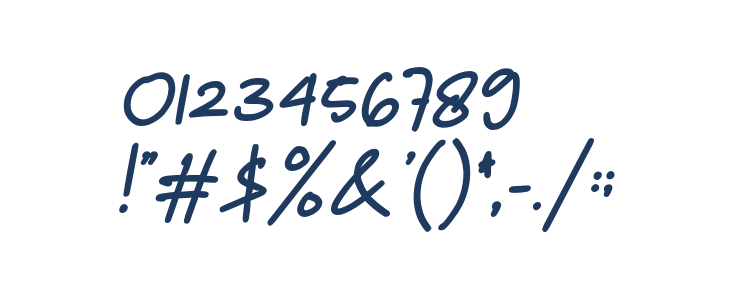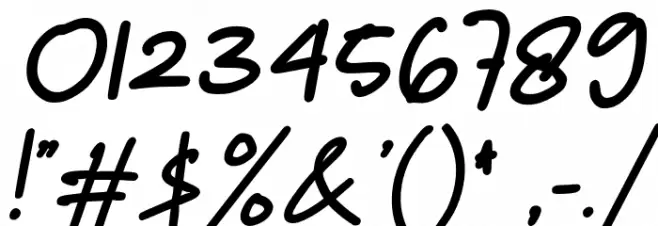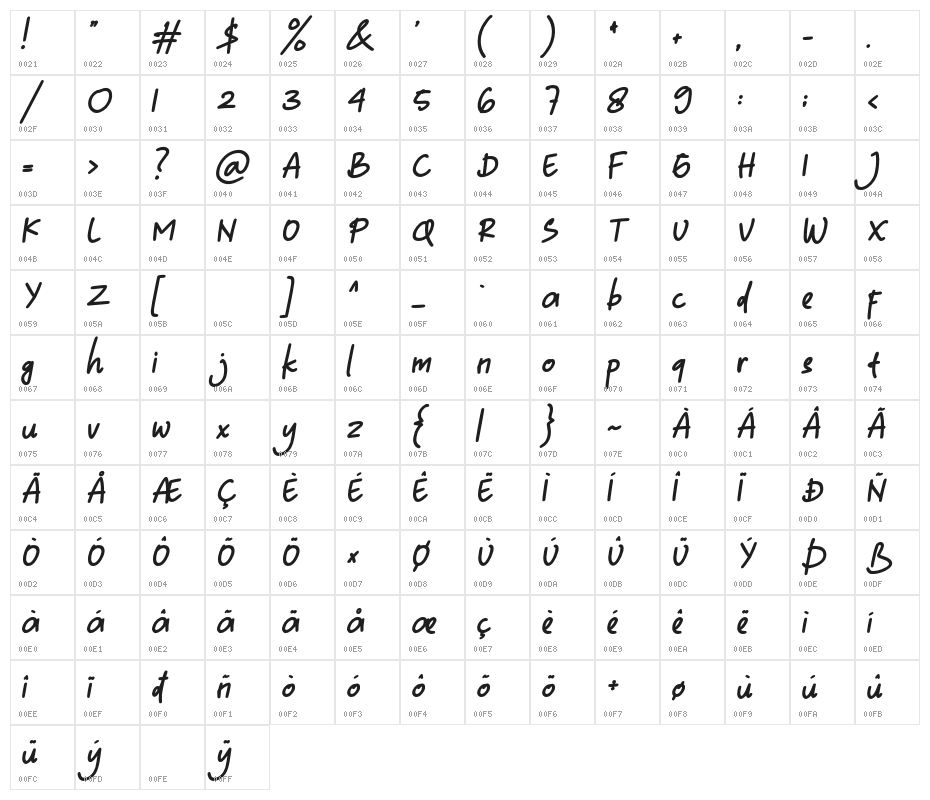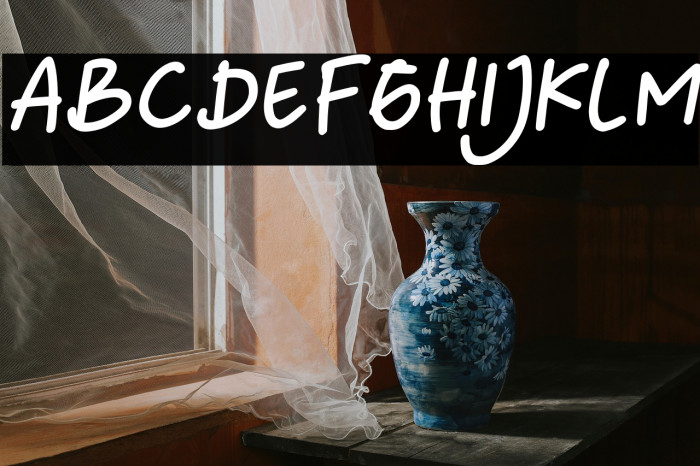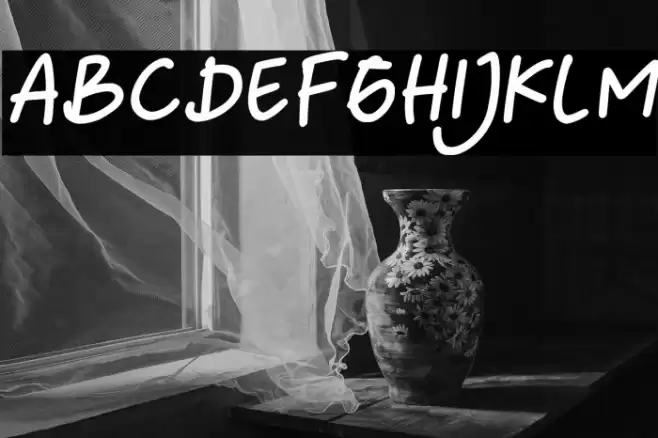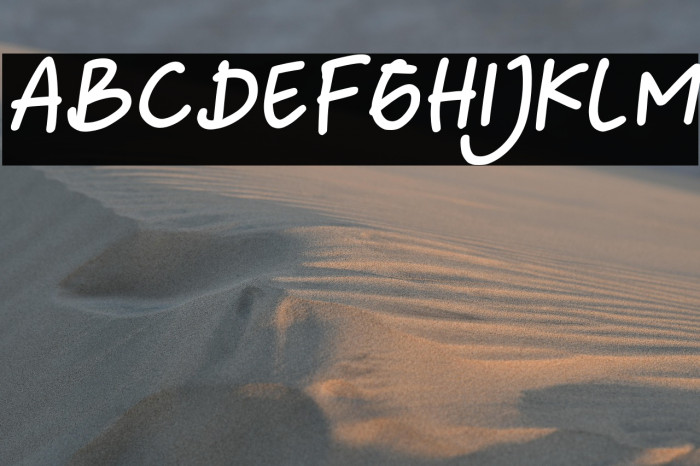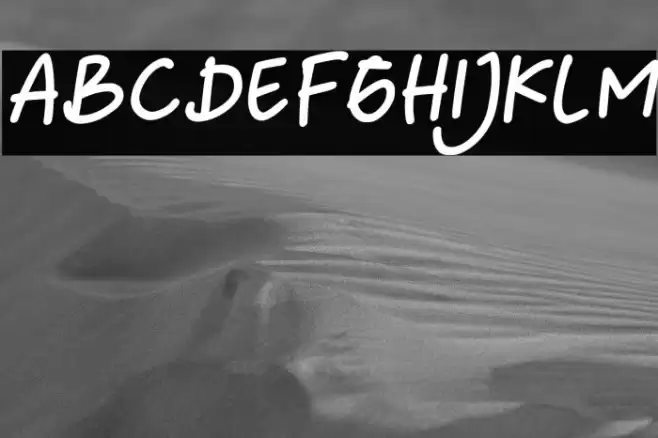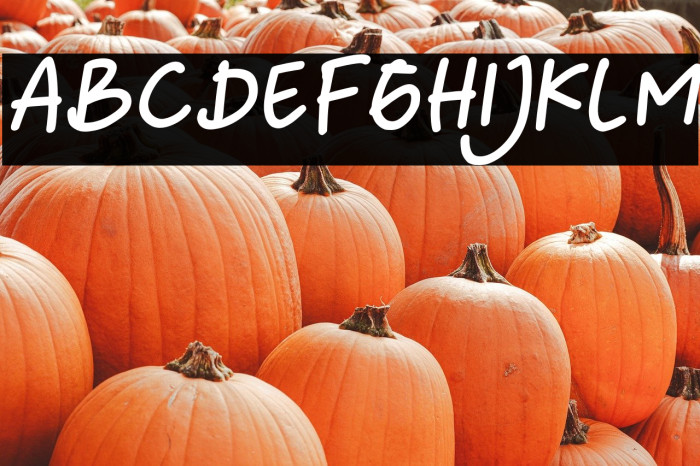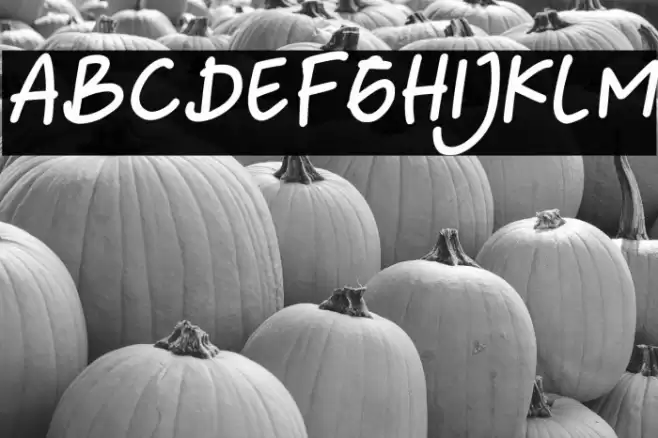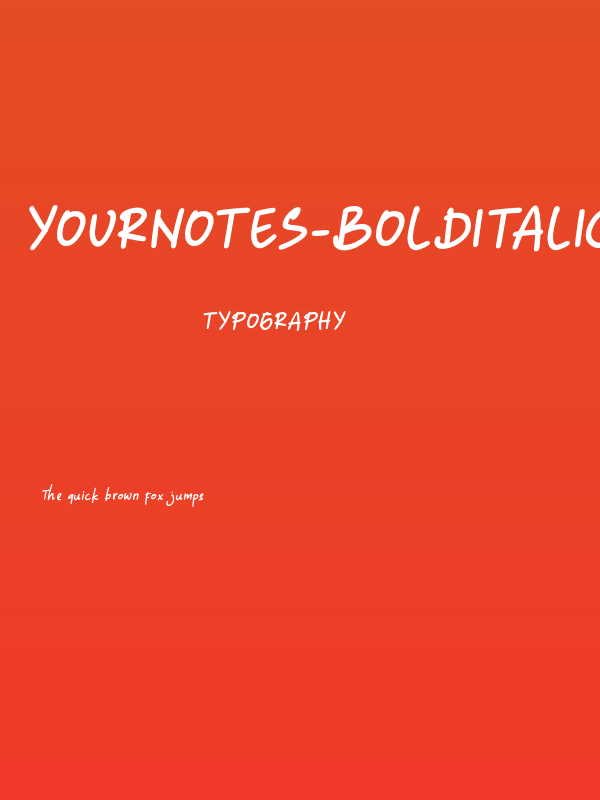
Yournotes-BoldItalic Font
Yournotes-BoldItalic Description
This font exudes a casual and friendly handwritten style, characterized by its bold and italicized form. The letters are slightly slanted, giving a dynamic and energetic feel. Each character is crafted with smooth, flowing strokes that mimic natural handwriting, making it ideal for conveying a personal touch. The uppercase and lowercase letters maintain a consistent style, with rounded edges and a playful appearance. Numbers and special characters are equally expressive, ensuring versatility across various applications. The overall look is approachable and informal, perfect for projects that require a human touch.
| Proposed Projects | Ideal for greeting cards, personal branding, social media graphics, and informal invitations. |